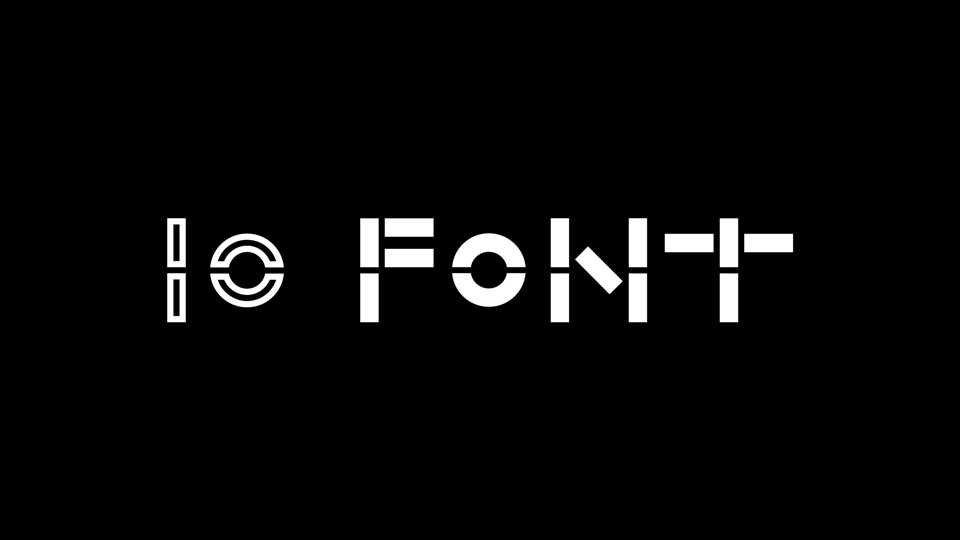
Download IO is a modular geometric font made using only two units: a straight line and a curved line. IO font is specifically created for visual impact—ideal for logo, branding and advertising purposes.
Designer: Nat Pyper